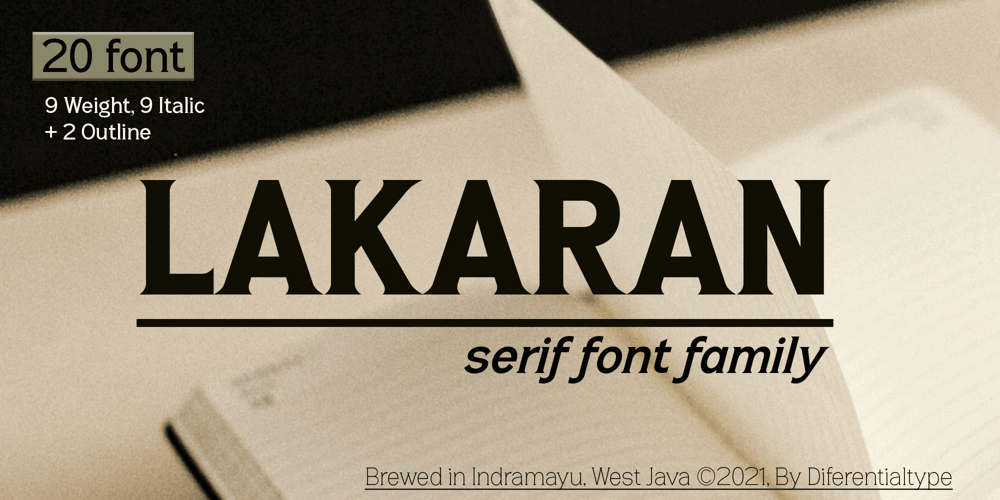
Lakaran Font Family was designed by Sidik Sidik and published by Differentialtype. Lakaran contains 20 styles and family package options. Lakaran is a serif font family that comes in 9 weights, 9 italics and 2 outlines. Lakaran is perfect for word documents, logo marks, editorial designs, branding projects, packaging, magazine titles, advertisements, and more.Lakaran is equipped with upper & lowercase, numbers, multilingual characters, several ligature and punctuation.